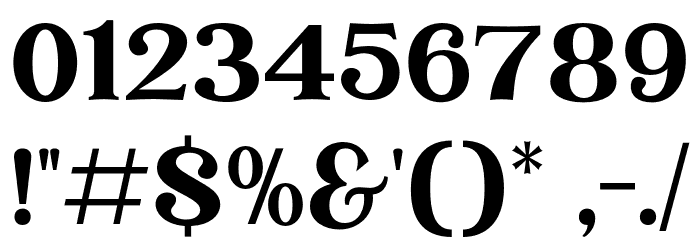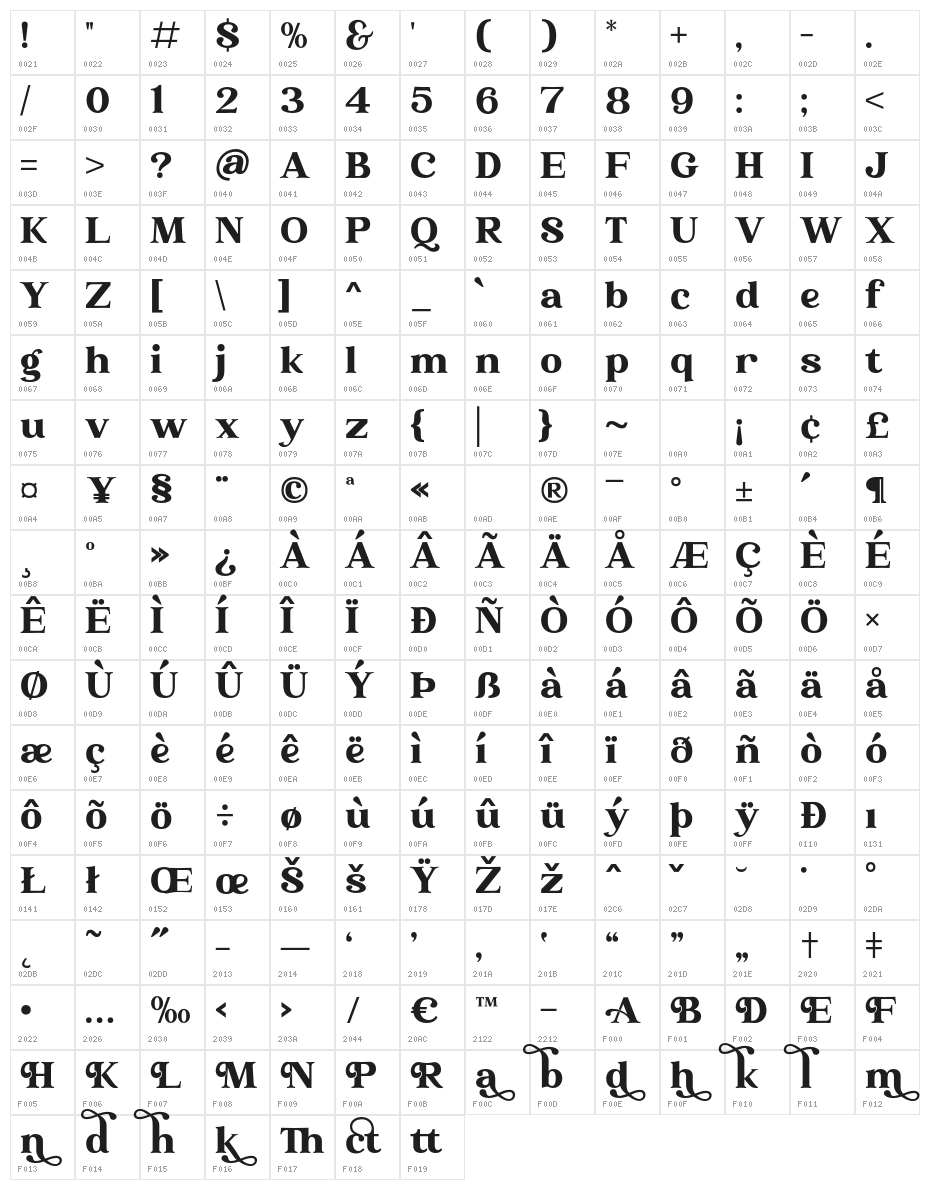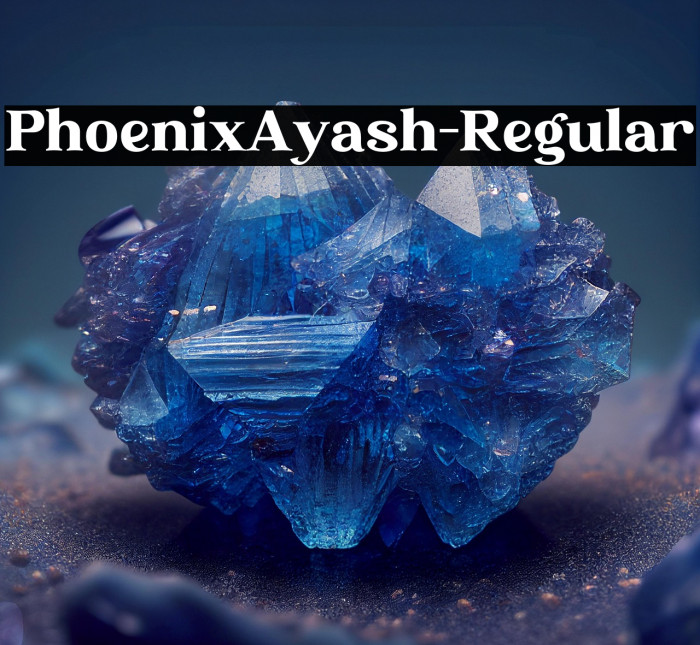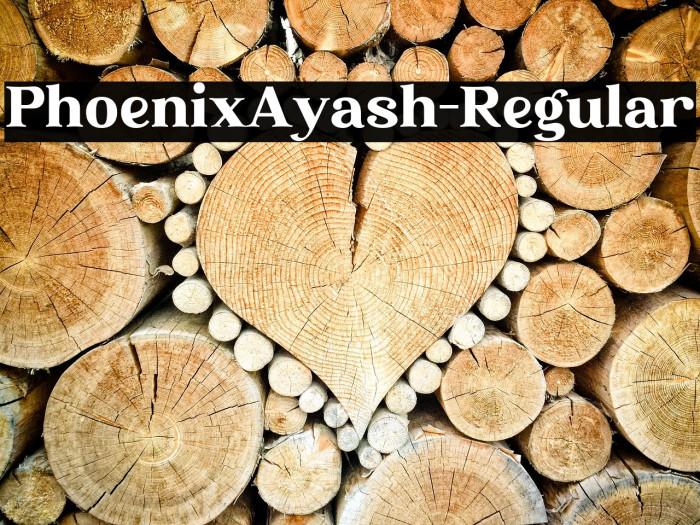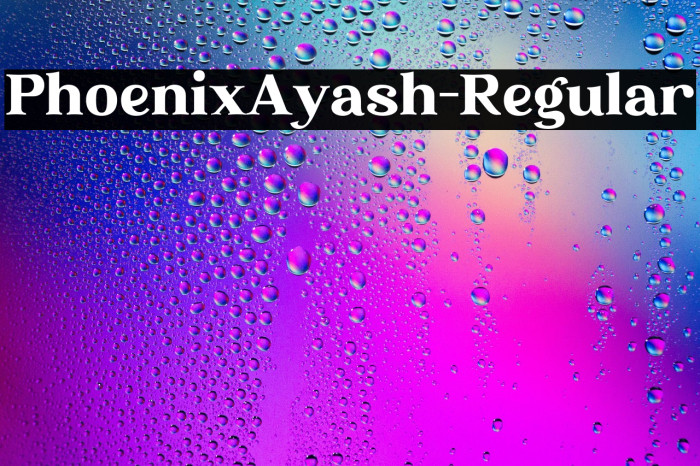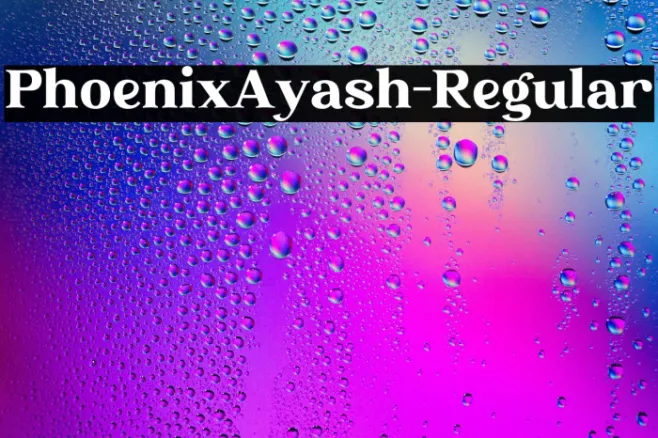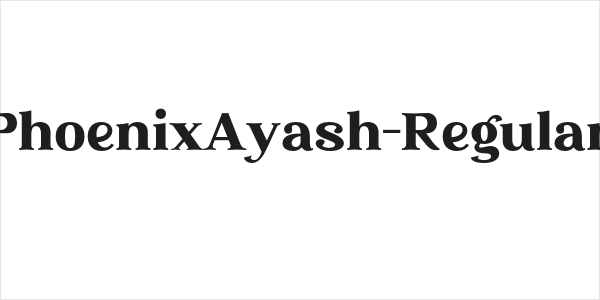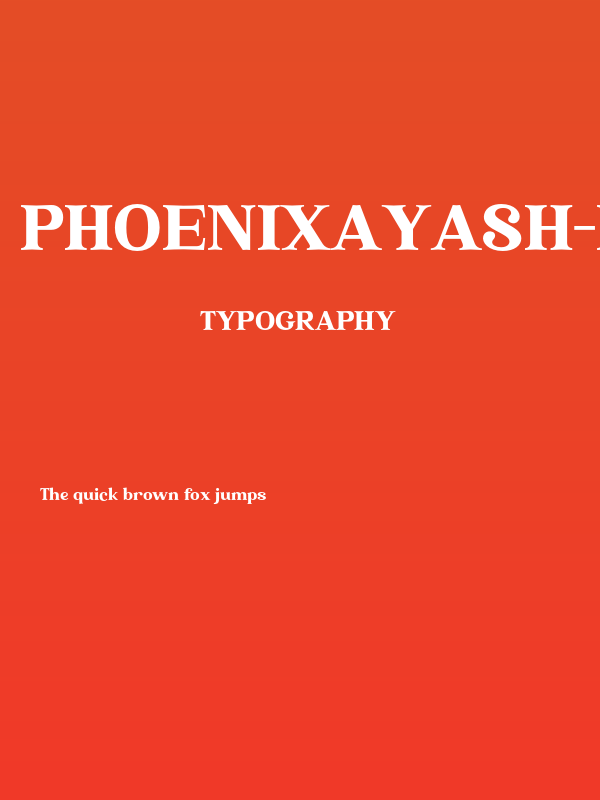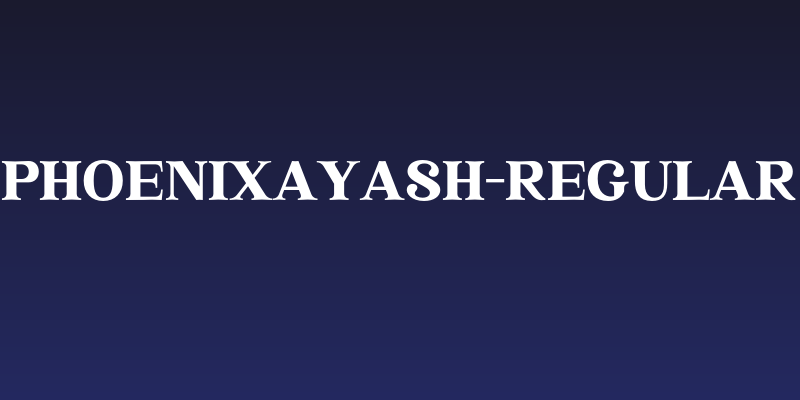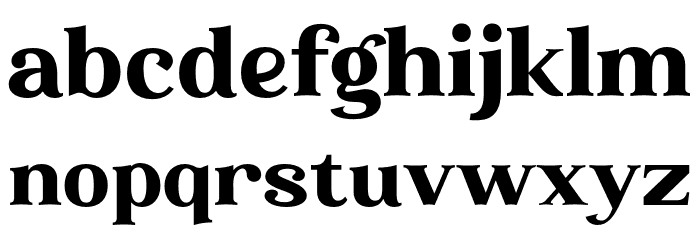
PhoenixAyash-Regular Font
PhoenixAyash-Regular Description
This font exhibits a classic serif style with a strong presence and elegant curves. The uppercase letters are bold and commanding, while the lowercase letters maintain a balanced and readable form. The numerals are consistent with the overall style, offering a traditional look. Special characters are well-integrated, maintaining the font's cohesive appearance. The serifs are pronounced, adding to the font's authoritative and formal aesthetic. This typeface is suitable for projects that require a touch of sophistication and timelessness.